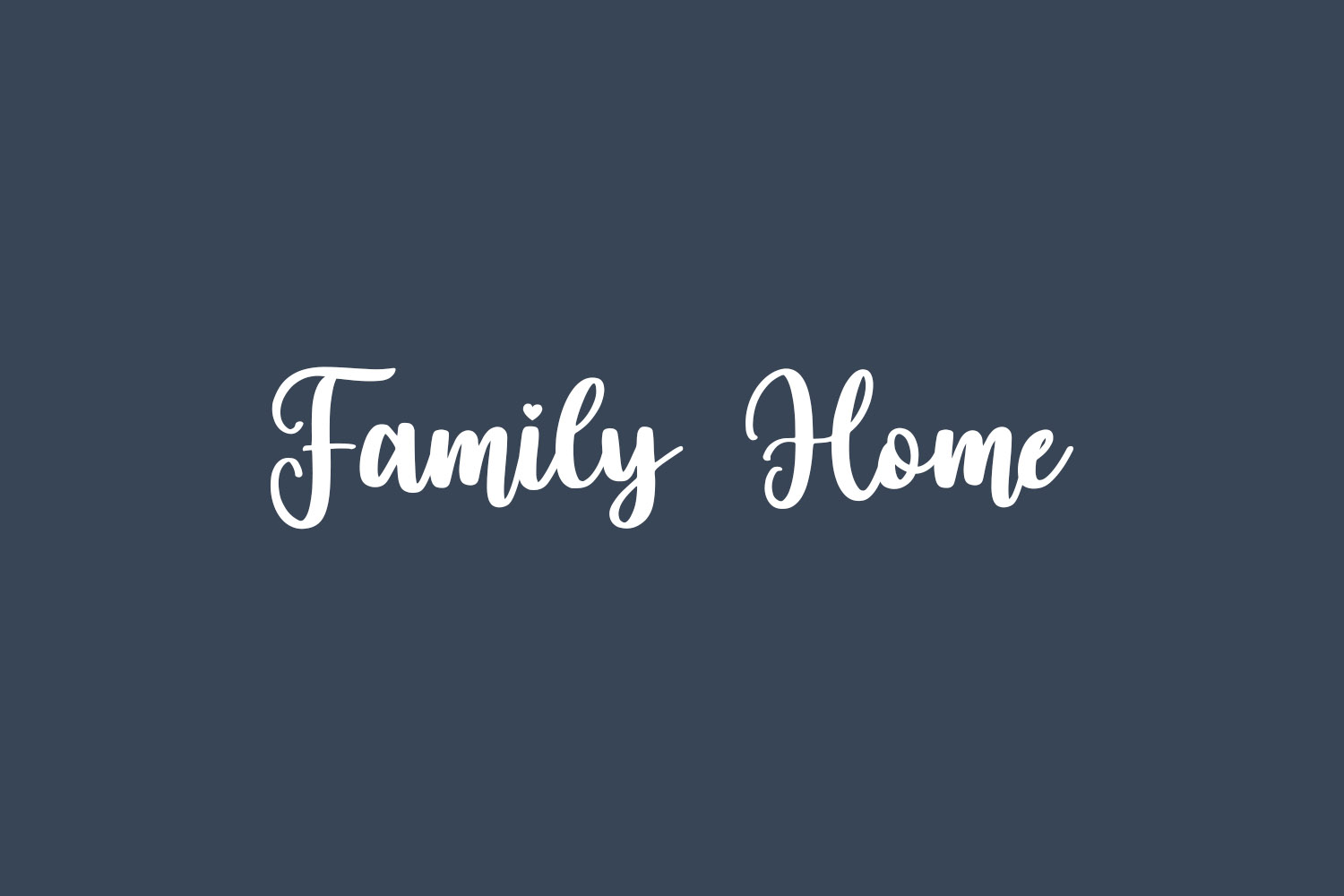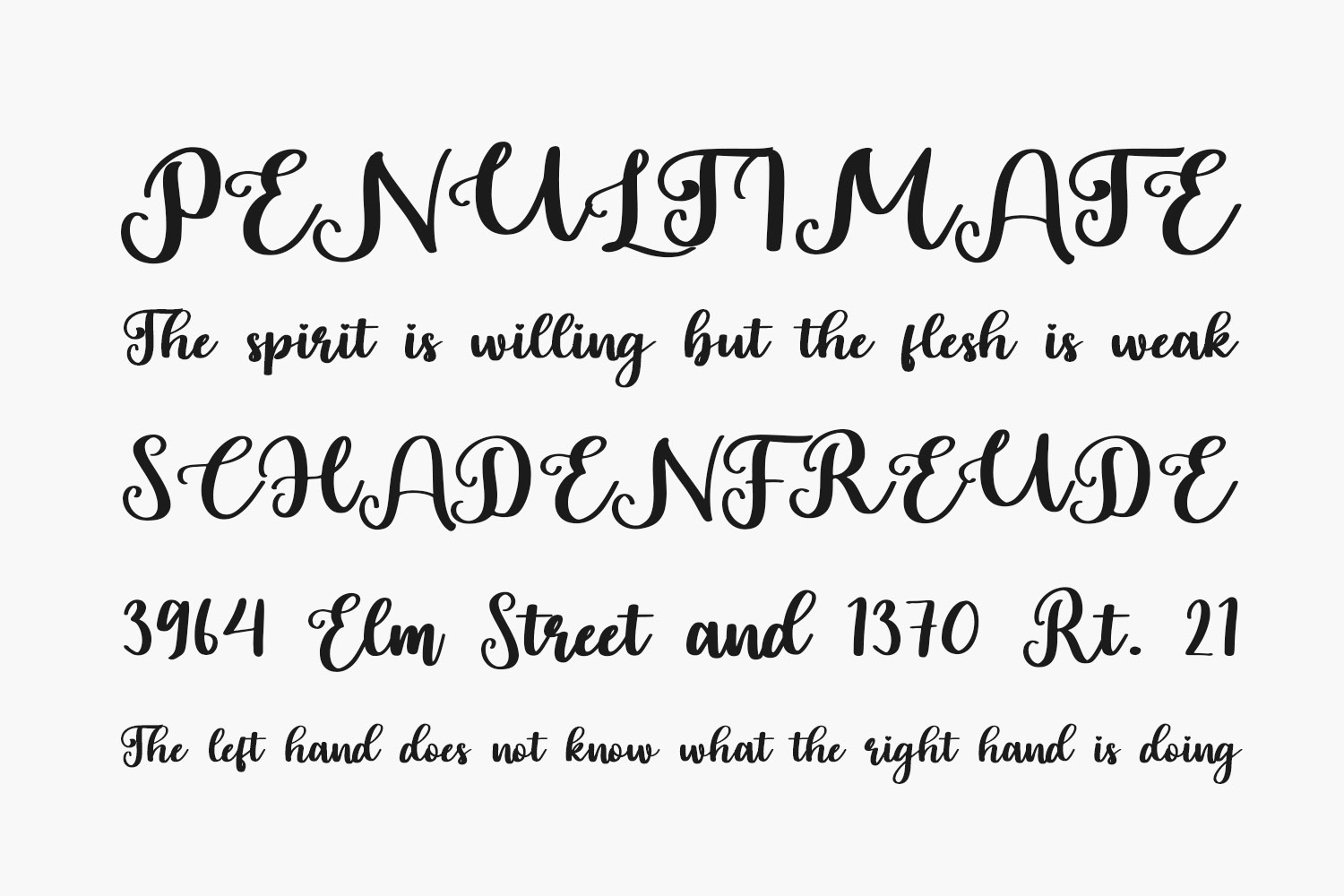
Family Home Free Font is a dainty, genuine, and cursive handwritten font. This gentle font will look gorgeous on a variety of design ideas, and it will add a joyful and romantic touch to each of your projects. Family Home Free Font was designed by Bearytype and is free for personal use only. Please purchase the full version for commercial use.